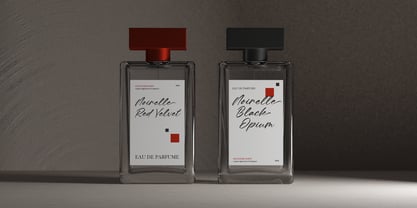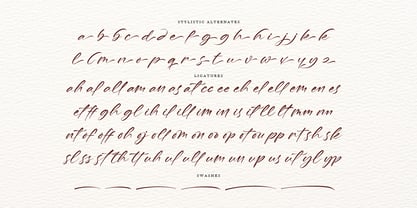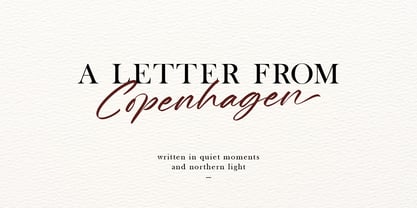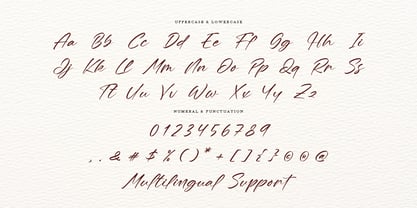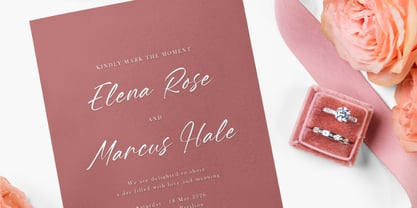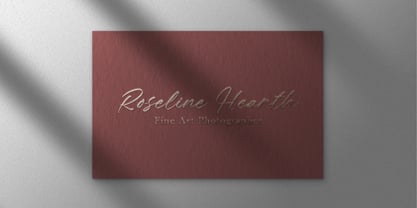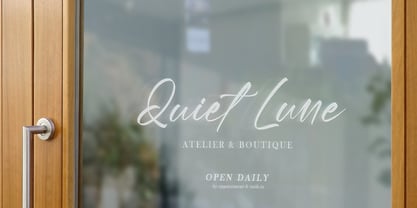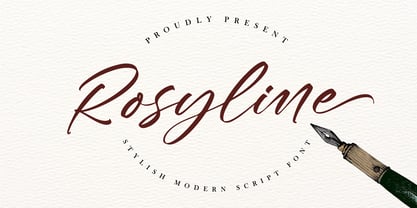
Rosyline
by Graha Type
Rosyline is a stylish modern script font designed to create a clean, feminine, and contemporary look. It works well for modern logos and personal branding, and is also suitable for wedding invitations, beauty and lifestyle designs, social media graphics, packaging, stationery, and short headlines where a soft and stylish touch is needed. Create clean and stylish designs with Rosyline.